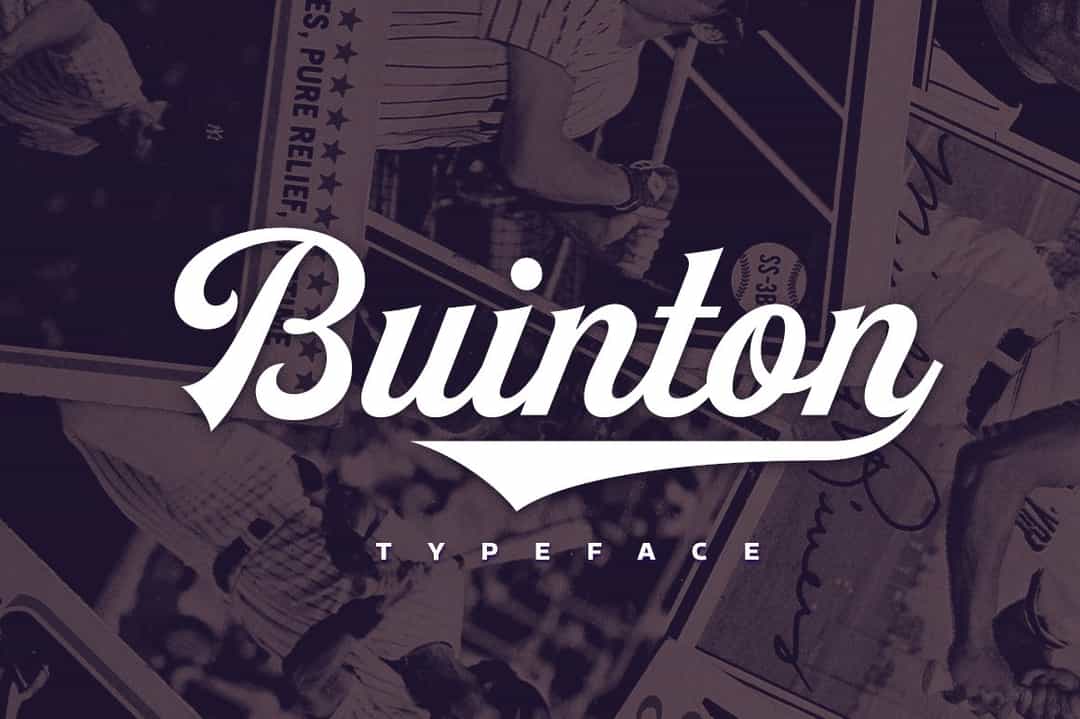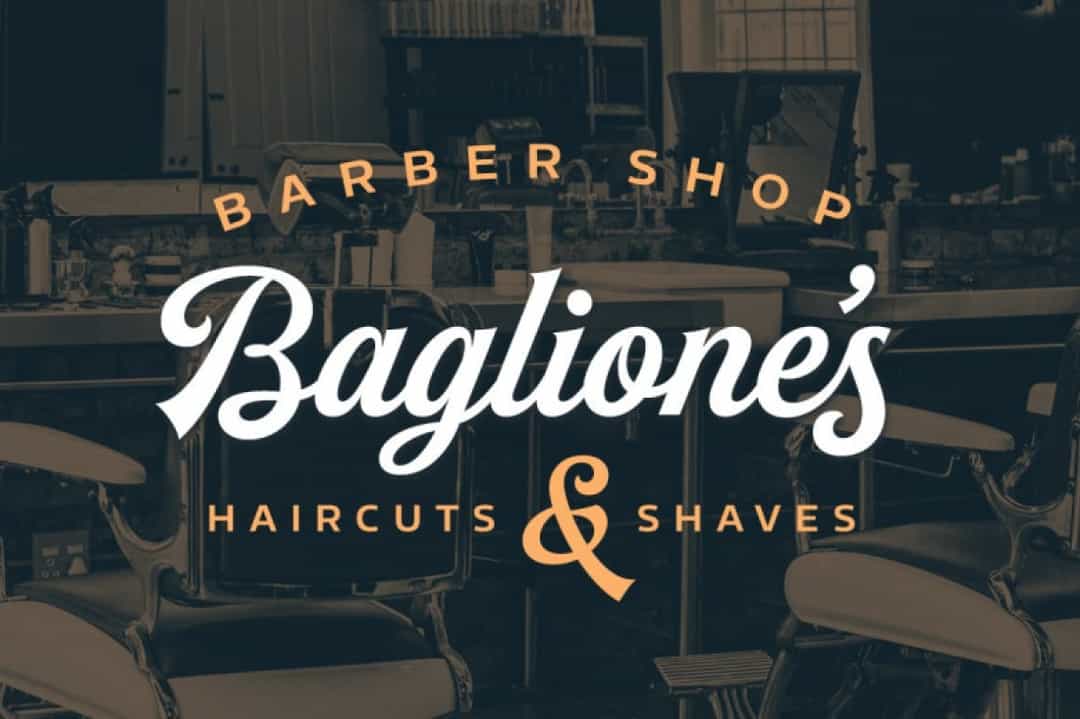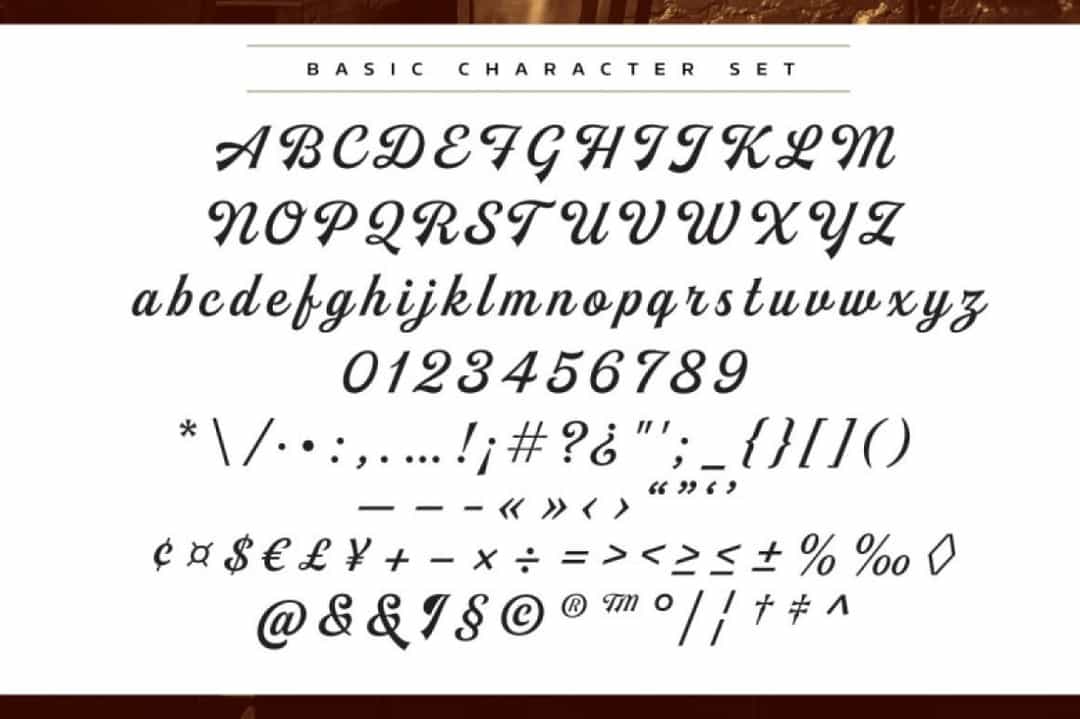
Buinton Font is an elegant and classic script font, distinguished by serifs at the beginnings of strokes, swash capitals, formal designs and formal serifs at endpoints. Additionally, Buinton includes various alternative characters, ligatures, swashes and tails with various widths and shapes that help create vintage logotypes or sports-style logos for any design project.